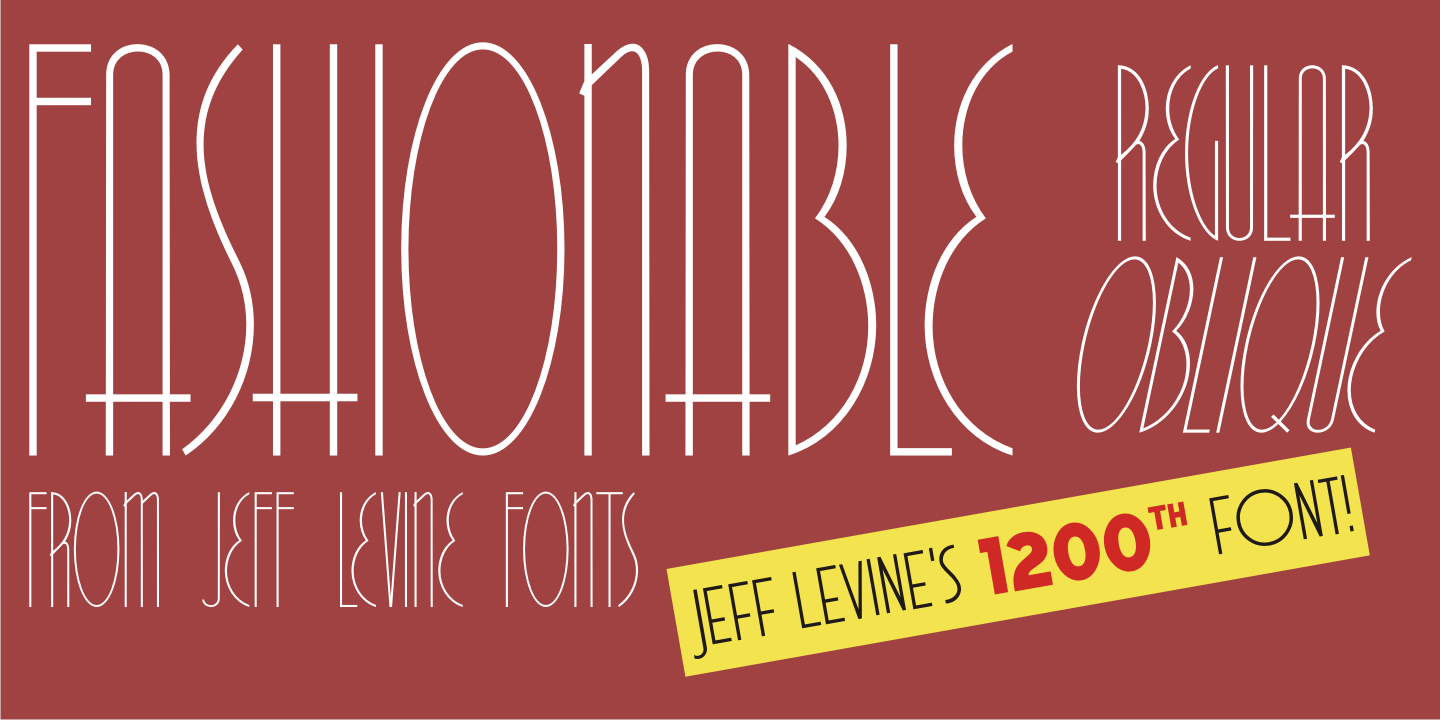
Fashionable
For years, the print ads for the Hickok Jewelry Company [renowned for their line of men's belts, suspenders, wallets, cufflinks, etc.] featured its name and related main line ad copy hand-lettered in a condensed monoline with Art Deco styling.
This has been reproduced in Fashionable JNL, available in both regular and oblique versions.
For those of you who are wondering… yes, the founder of the company was a distant relative of 'Wild Bill” Hickok.